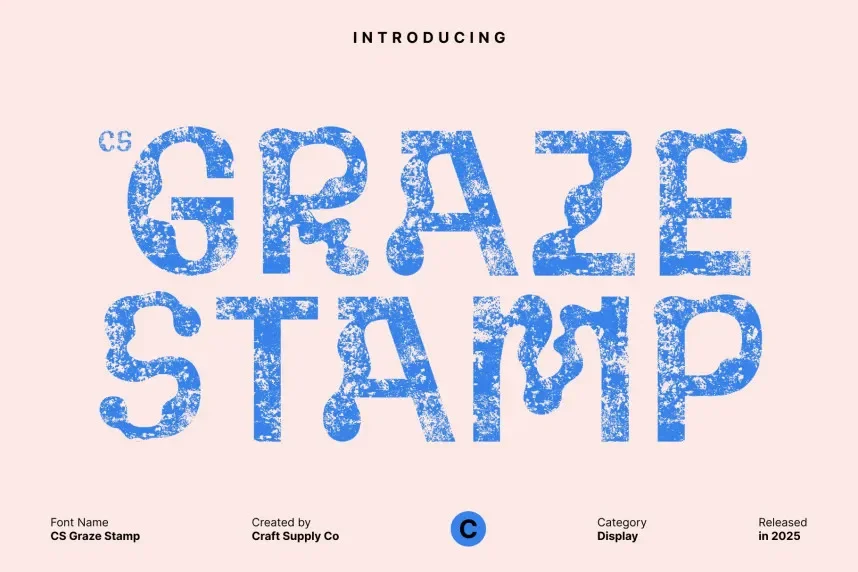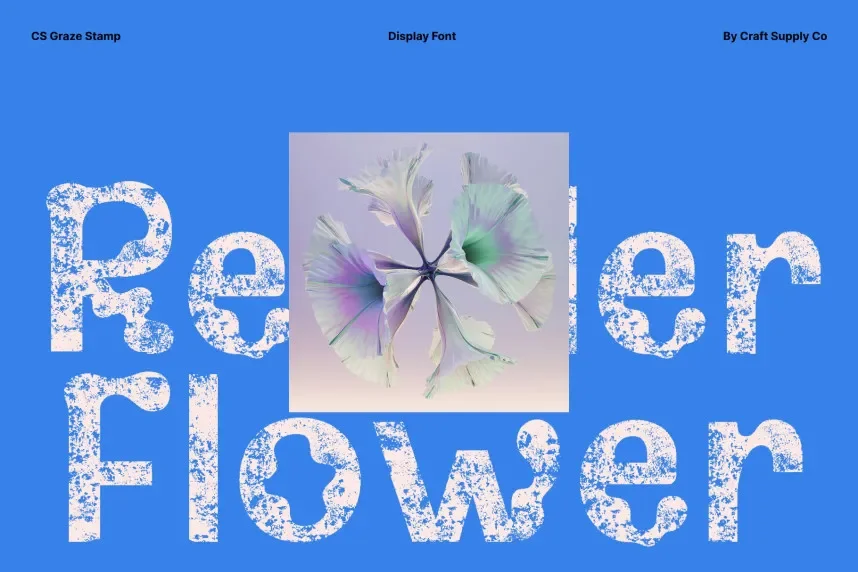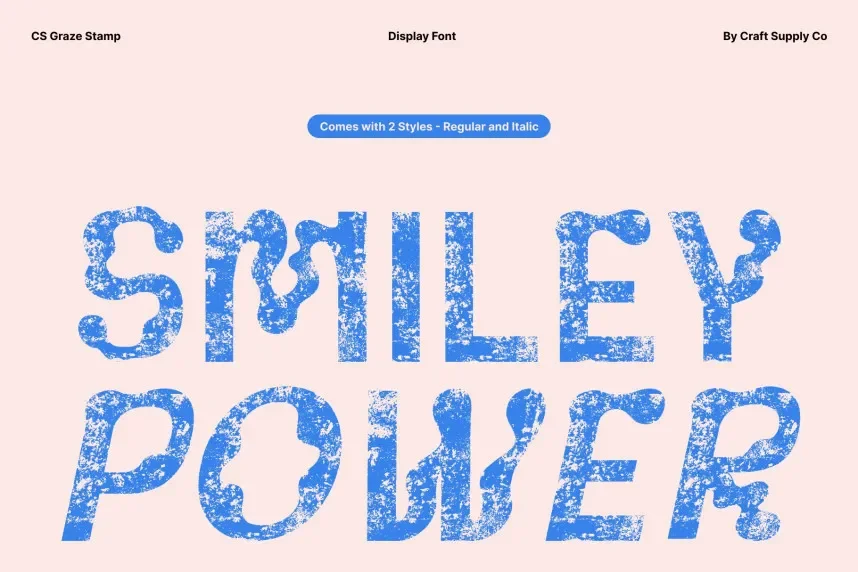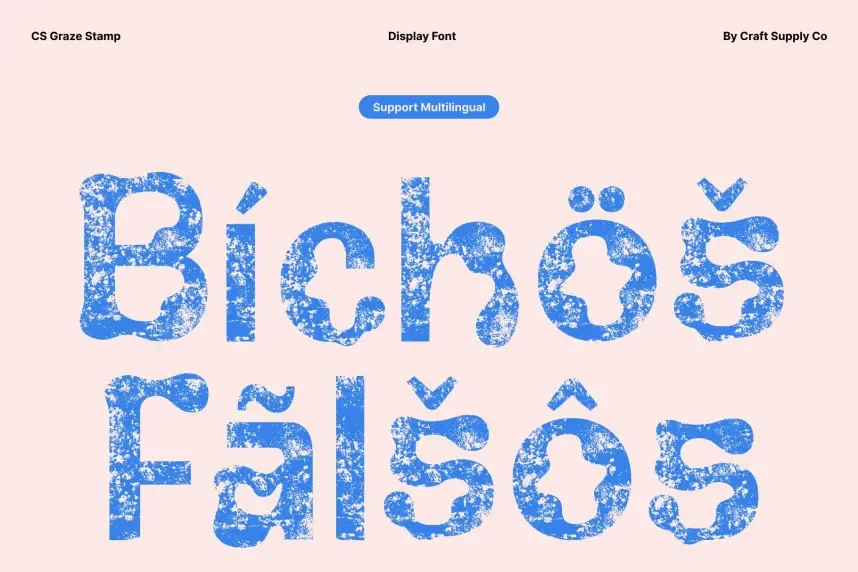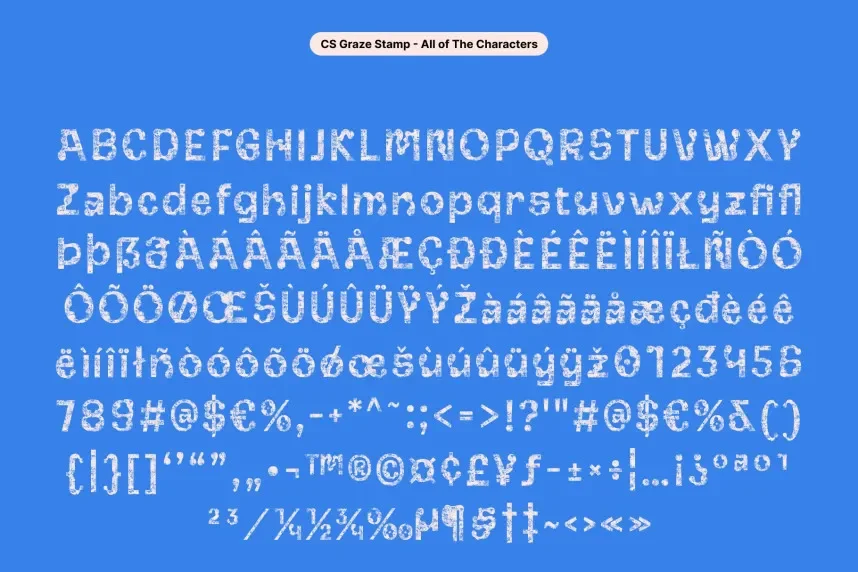
CS Graze Stamp Font is a bold, serif typeface that captures the essence of vintage print. Its rough, irregular edges give it a textured, stamped look that works well for branding, invitations, and event promotions. The font's robust strokes and sharp corners make it stand out in both small and large-scale designs.